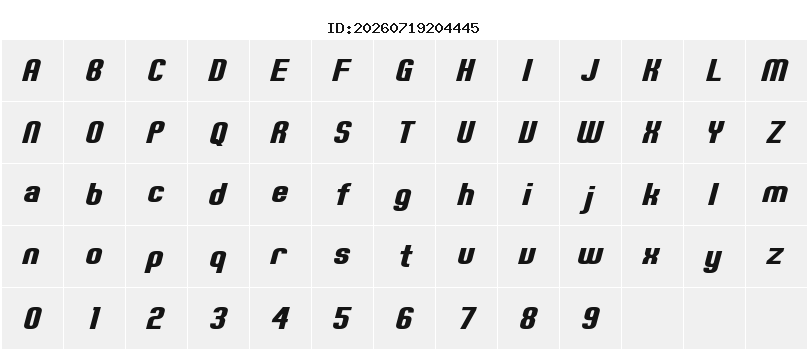
• Font Name: Erte
• Designer: Neale Davidson
About Erte.ttf
Erte.ttf is a modern, elegant sans-serif font designed for ultimate readability and visual harmony. Perfect for branding, headlines, web design, and print materials.